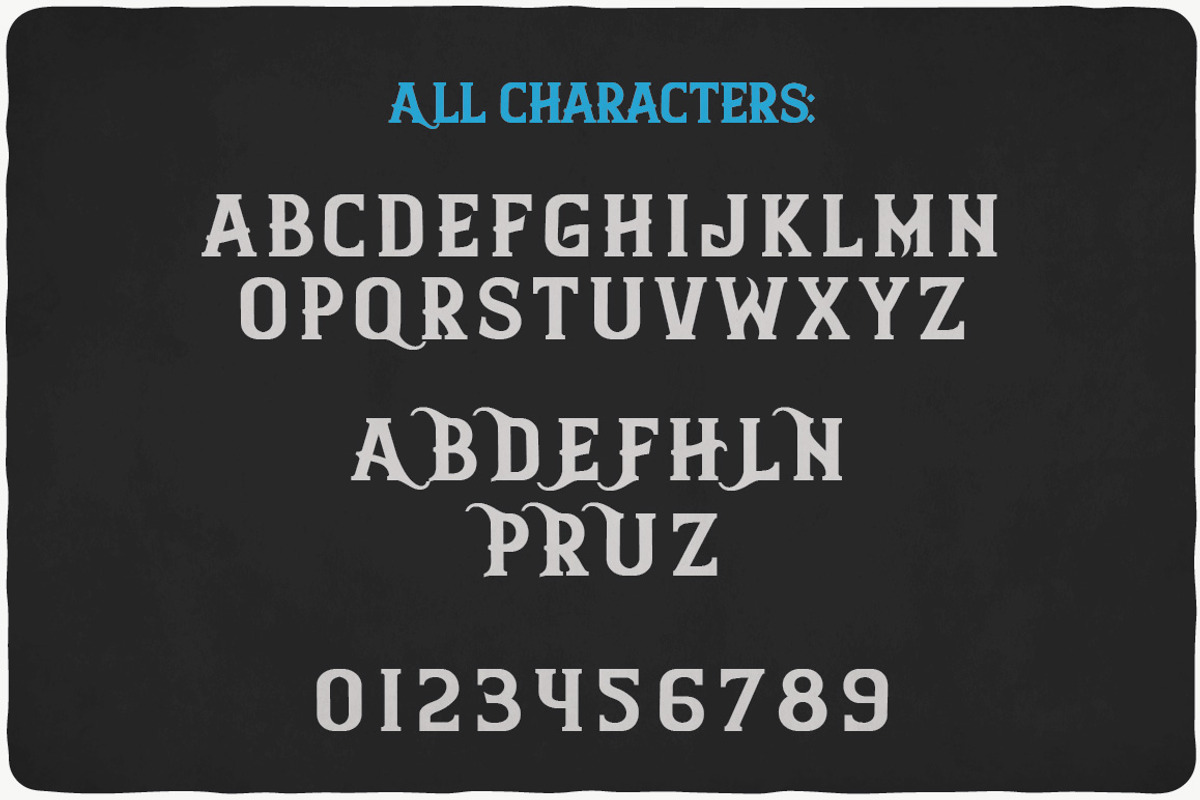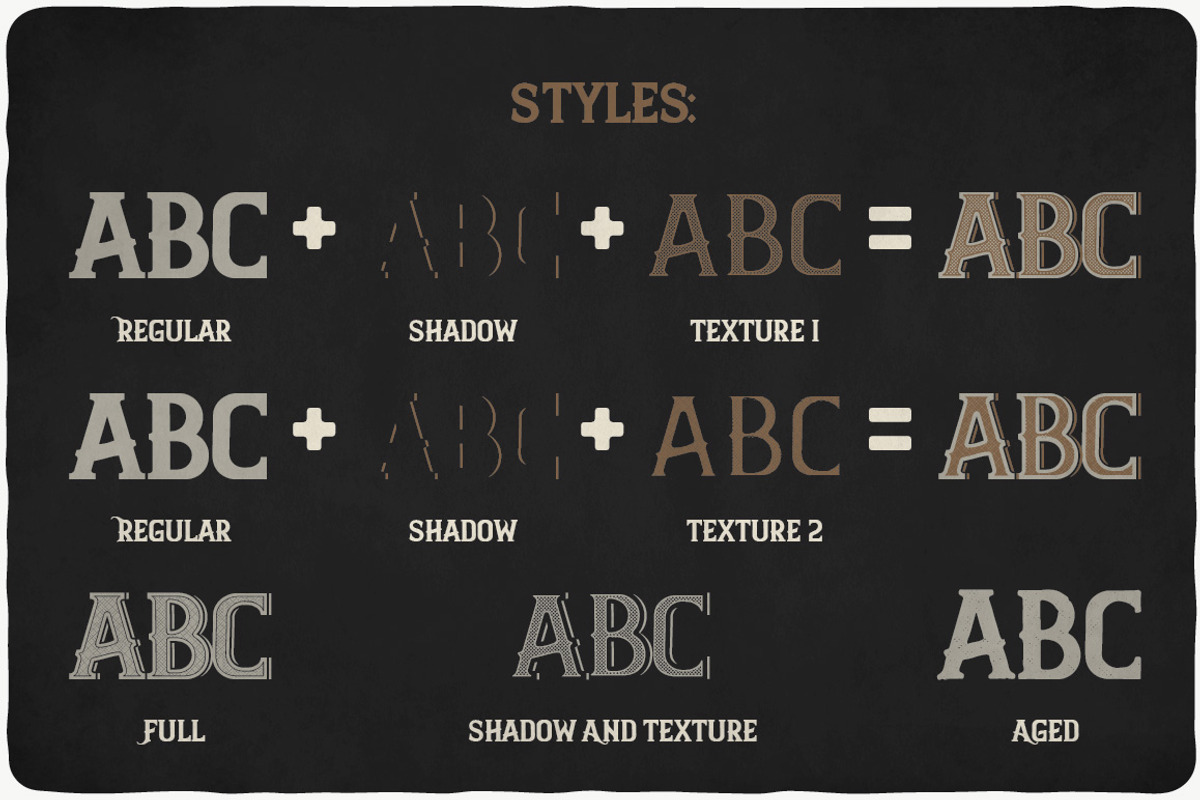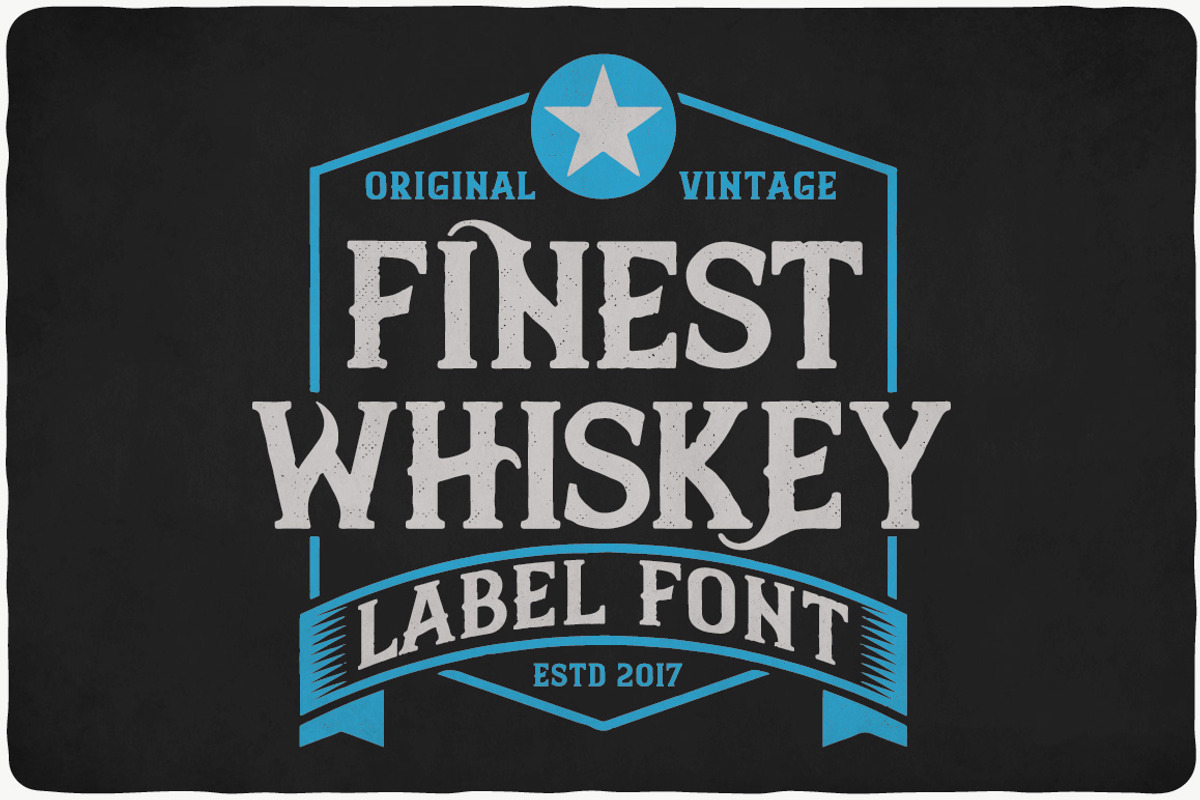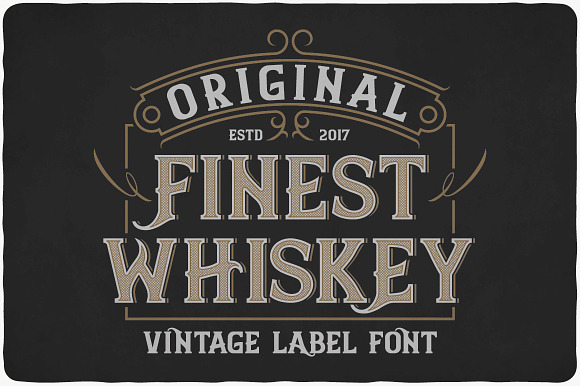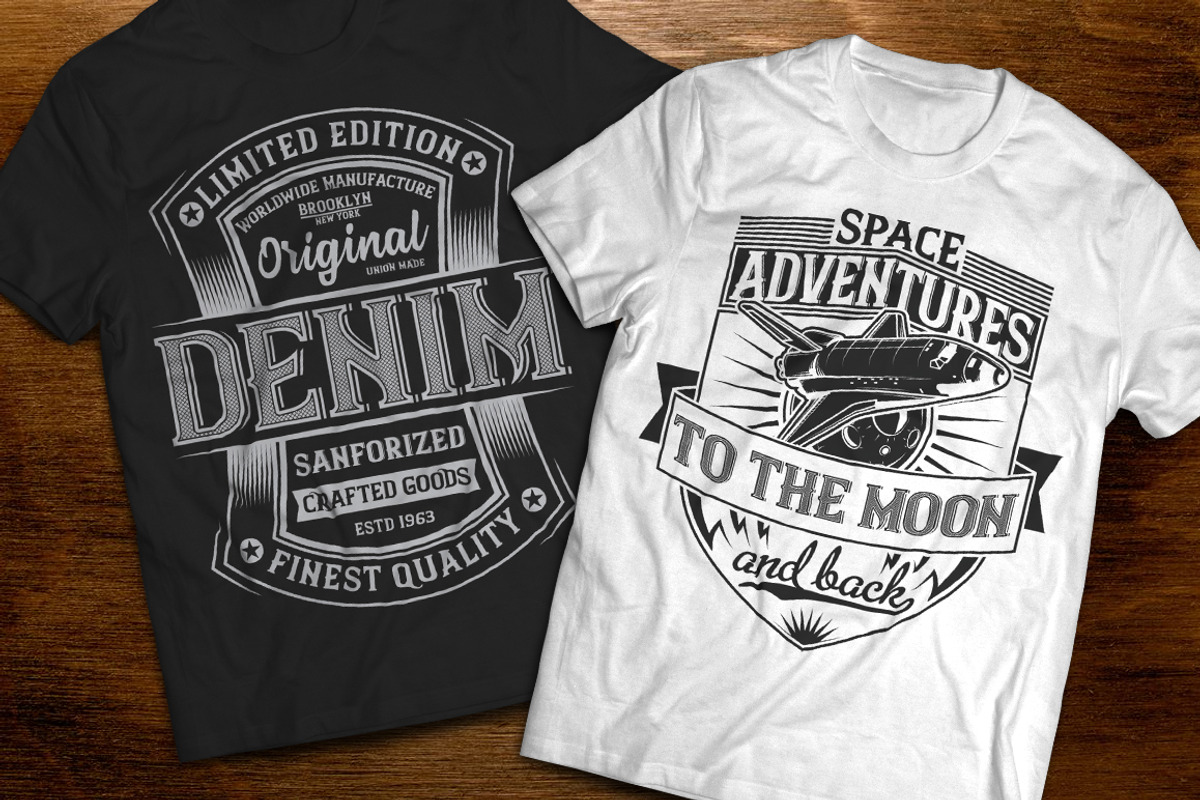
Finest Whiskey Font
Introducing a vintage look label typeface named "Finest Whiskey". This typeface contains layers - texture and shadow, for sample look at 4th preview. Plus aged (distressed) version. Typeface is good viewed on any yours design.
- This typeface contains layers - texture and shadow, for sample look at 4th preview.
- Finest Whiskey Regular
- Finest Whiskey Aged
- Finest Whiskey Full
- Finest Whiskey Shadow
- Finest Whiskey Texture 1
- Finest Whiskey Texture 2
- Finest Whiskey Texture Shadow